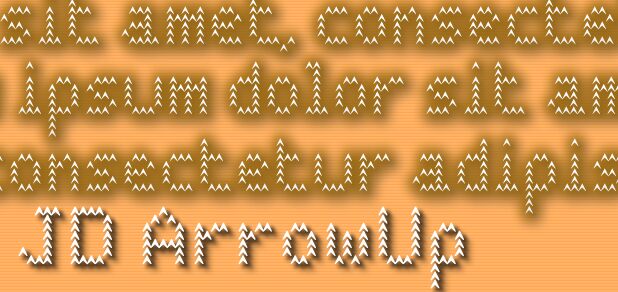
JD ArrowUp by Jecko Development is a free decorative display font formed from repeated upward-pointing chevrons. The open construction gives every form a wiry, patterned texture.
An outdoor apparel brand or climbing venue could use it for a logo with a clear sense of ascent. Its arrow motif also suits event posters, sports merchandise, and game graphics built around movement or progress. It is most convincing when the lettering itself becomes a directional emblem rather than ordinary text.